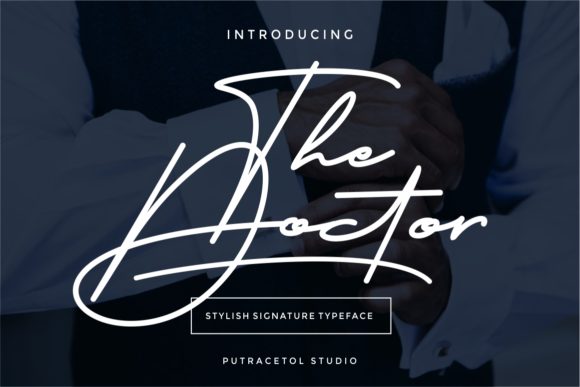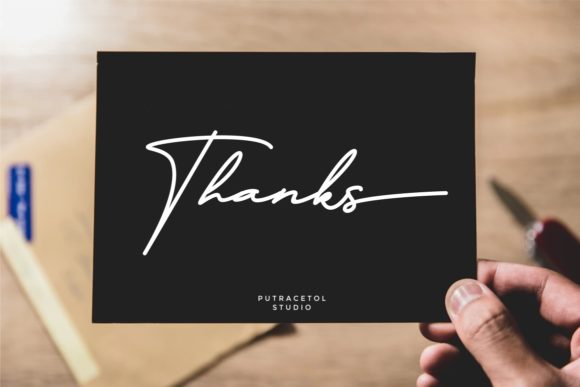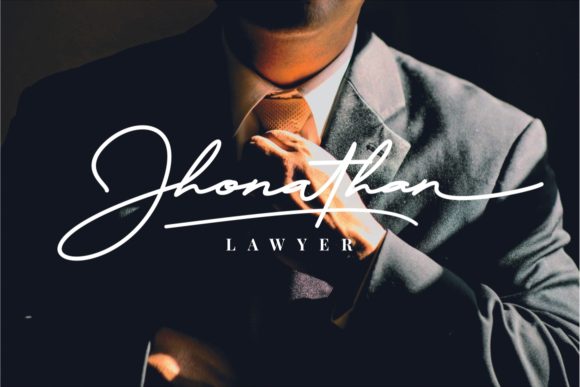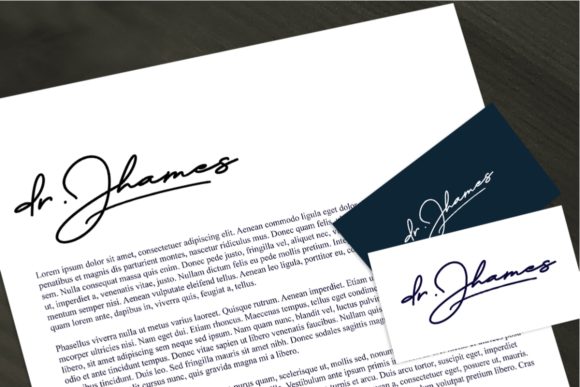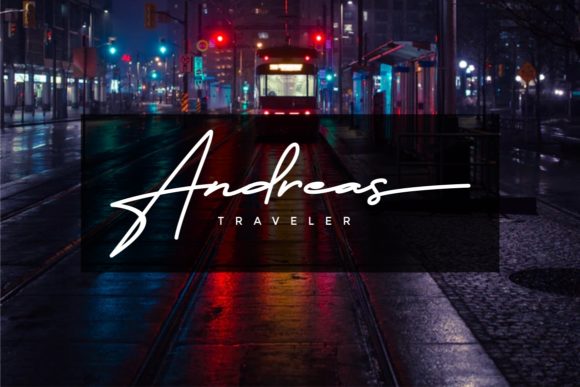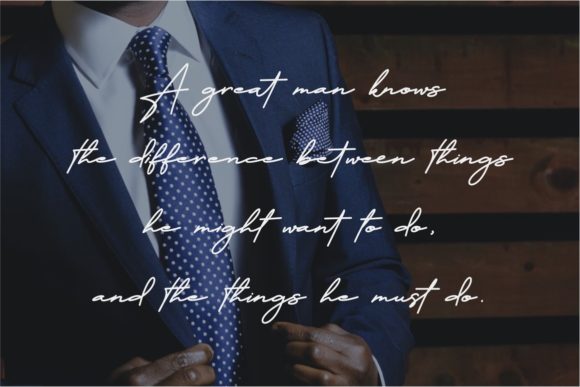
The Doctor Font
About The Doctor Font
The Doctor is an amazing signature font. It’s handwritten style gives an classy, natural, and stylish impression.
It’s perfect for signatures, headings, covers, branding, invitations, labels, posters, logos, quotes, product packaging, headers, merchandise, and much more!